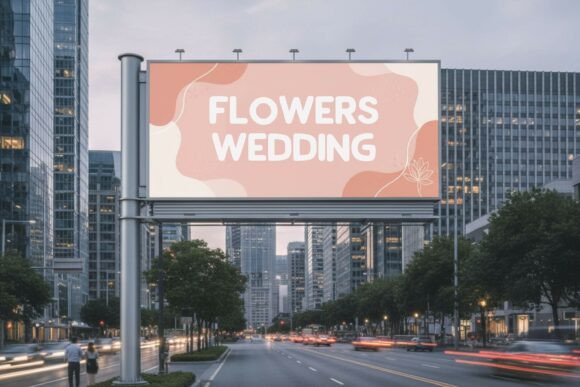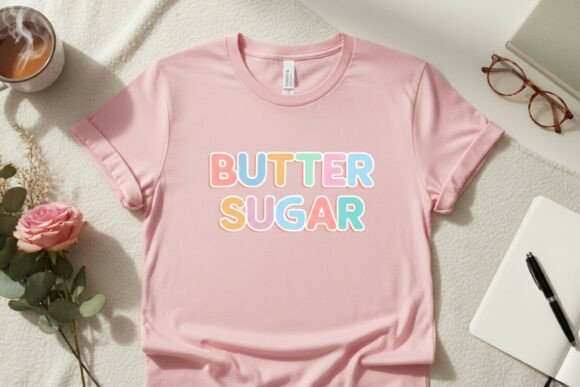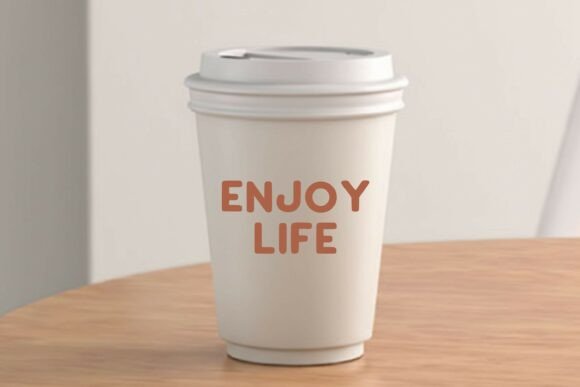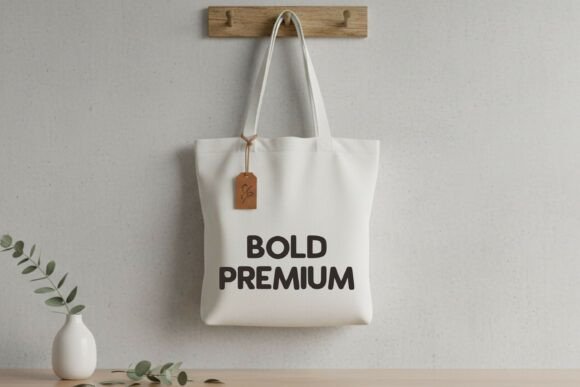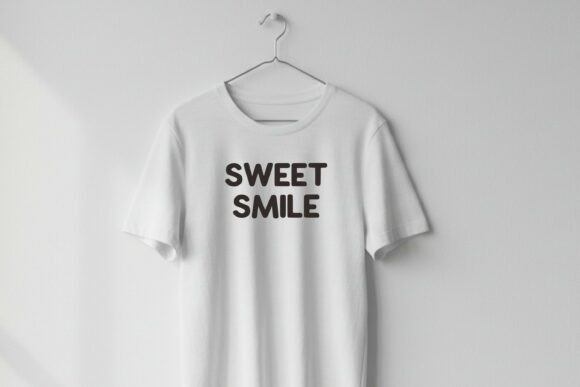
Have you ever stared at a blank design canvas, trying to spark that elusive creative spark? It’s a feeling many designers know all too well. But what if I told you that there’s a font that can instantly add a dash of charm and personality to your work? Meet the Butter Sugar Font, a delightful display font that’s sure to bring a smile to your face.
With its soft curves, pastel-inspired styling, and bold personality, the Butter Sugar Font is perfect for designers looking to add a touch of whimsy to their projects. Whether you’re working on a children’s book, a social media campaign, or a sweet-themed design, this font is sure to bring a joyful and friendly feel to your typography. And with its excellent readability and modern look, you can trust that your designs will make a lasting impression.
Key Features of Butter Sugar Font
- Font Family: Butter Sugar Font is a sans-serif font family, designed to be clean, modern, and versatile.
- Character Set: Supports a wide range of languages, including Latin, Cyrillic, and Greek alphabets, making it suitable for global applications.
- Unique Characteristics: Features a unique blend of geometric and organic shapes, giving it a distinctive and modern look that sets it apart from other sans-serif fonts.
Designer Review: Butter Sugar Font
Overall, I was quite impressed with the Butter Sugar Font. It’s a fun and playful font that’s perfect for adding a touch of whimsy to your designs.
- ✨ Unique character set: The font has a distinct and quirky character set that’s sure to grab attention.
- ✨ Great for titles and headings: The font’s bold and playful style makes it perfect for use in titles and headings.
- ✨ Easy to read: Despite its playful style, the font is still easy to read, even at smaller font sizes.
- ⚠️ Limited language support: The font only includes characters for the Latin alphabet, which may limit its use for designs that require other languages.
- ⚠️ May not be suitable for formal designs: The font’s playful style may not be suitable for formal or professional designs.
Overall, I would recommend the Butter Sugar Font for designs that require a fun and playful touch. However, it’s not the best choice for formal or professional designs, or for designs that require multiple languages.
For best results, use the font in conjunction with a distressed or vintage effect to give your design a unique look.
Use the font in a bold, eye-catching way to draw attention to your design.
Use the font in a creative way to add visual interest to your presentation or document.
The Butter Sugar font is ideal for:
- Distressed or vintage-themed designs.
- Food or beverage branding.
- Wedding invitations or stationery.
- Any design that needs a unique, eye-catching touch.